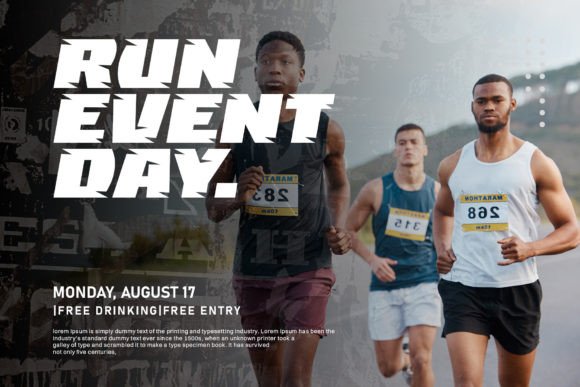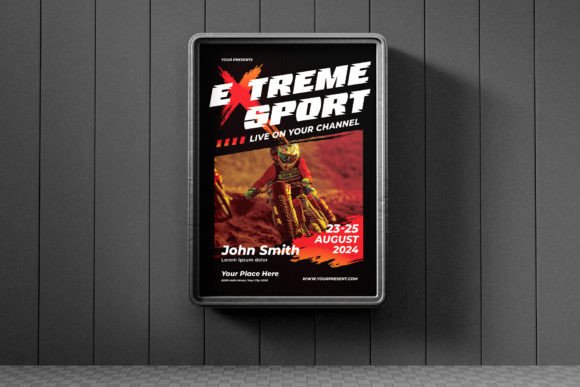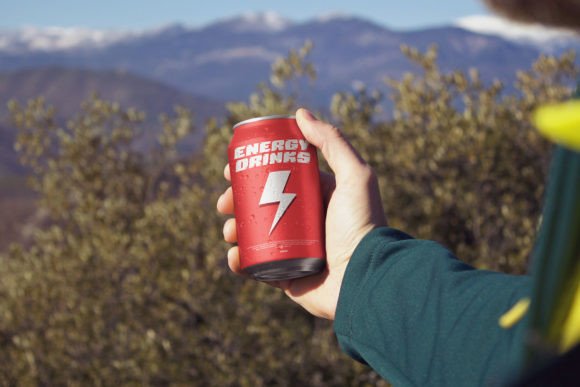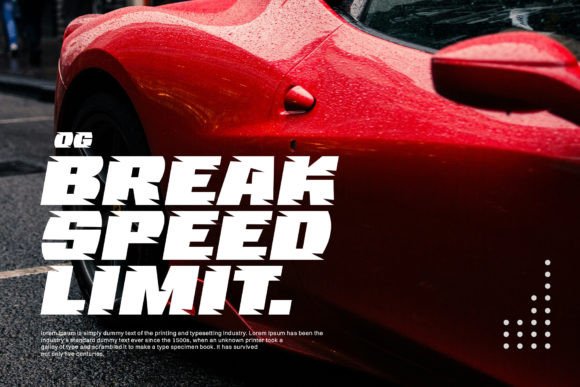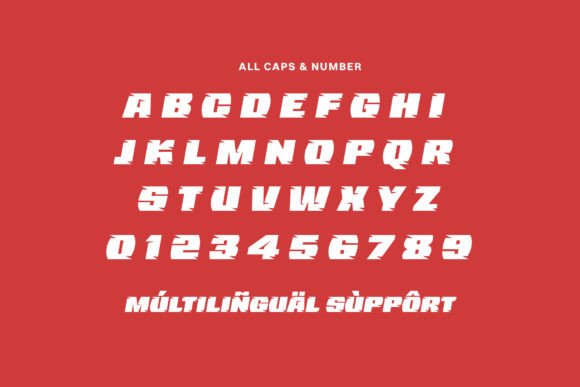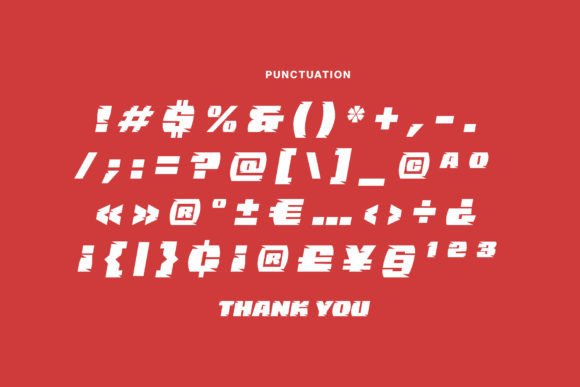
Igniting Your Design
Remember that moment when you were working on a project, and you needed a font that would take it to the next level? A spark that would ignite the entire design and leave a lasting impression on your audience? That’s exactly what the Blaze Circuit Font was designed to do.
| 📌 Product Name | Blaze Circuit Font |
With its high-octane, bold structure, this font is the perfect choice for designers looking to infuse their projects with a sense of motion and power. Whether you’re working on a racing-themed project or just need a font that captures the spirit of competition, the Blaze Circuit Font is sure to deliver.
As a designer, you know the importance of choosing the right font to convey your message. The Blaze Circuit Font is a valuable addition to any design toolkit, offering a unique and dynamic look that’s sure to stand out across multiple platforms and mediums.
Blaze Circuit Font Key Features
- Font Family: Blaze Circuit Font is a modern, futuristic font designed for use in digital and analog displays.
- Size: Blaze Circuit Font comes in 6 font sizes, ranging from 8pt to 48pt, making it suitable for a wide range of applications.
- Resolution: Designed for high-resolution displays, Blaze Circuit Font is ideal for use in modern UI designs, graphics, and digital signage.
- Unique Characteristics: The font features a distinctive, hand-drawn aesthetic with a focus on clean lines, geometric shapes, and a bold, energetic feel.
Blaze Circuit Font Review
I recently had the chance to work with the Blaze Circuit Font, and I must say it’s a mixed bag. Here are my thoughts on what works well and what doesn’t.
- The font has a bold, futuristic feel to it, making it perfect for tech-related projects.
- The bold weight is incredibly sharp, making it great for headlines and titles.
- The font is highly customizable, allowing you to adjust the weight, spacing, and more to fit your project’s needs.
- The font can feel a bit overwhelming when used in large blocks of text, making it better suited for headlines and short paragraphs.
- The font’s unique style can be polarizing, and some users may not appreciate its futuristic feel.
- The font’s bold weight can be difficult to read in certain contexts, such as in small sizes or on low-resolution screens.
The Blaze Circuit Font is a solid choice for projects that require a bold, futuristic feel. While it may not be the best choice for every project, it’s definitely worth considering for tech-related projects or projects that require a lot of visual impact. With a bit of careful use, this font can add a lot of style and sophistication to your designs.
The Blaze Circuit Font is perfect for:
- Creating futuristic and high-tech designs.
- Adding a bold and edgy touch to your branding.
- Designing video game or sci-fi themed materials.
For optimal results, pair the Blaze Circuit Font with bold and vibrant colors, and use it sparingly to create a striking visual impact.